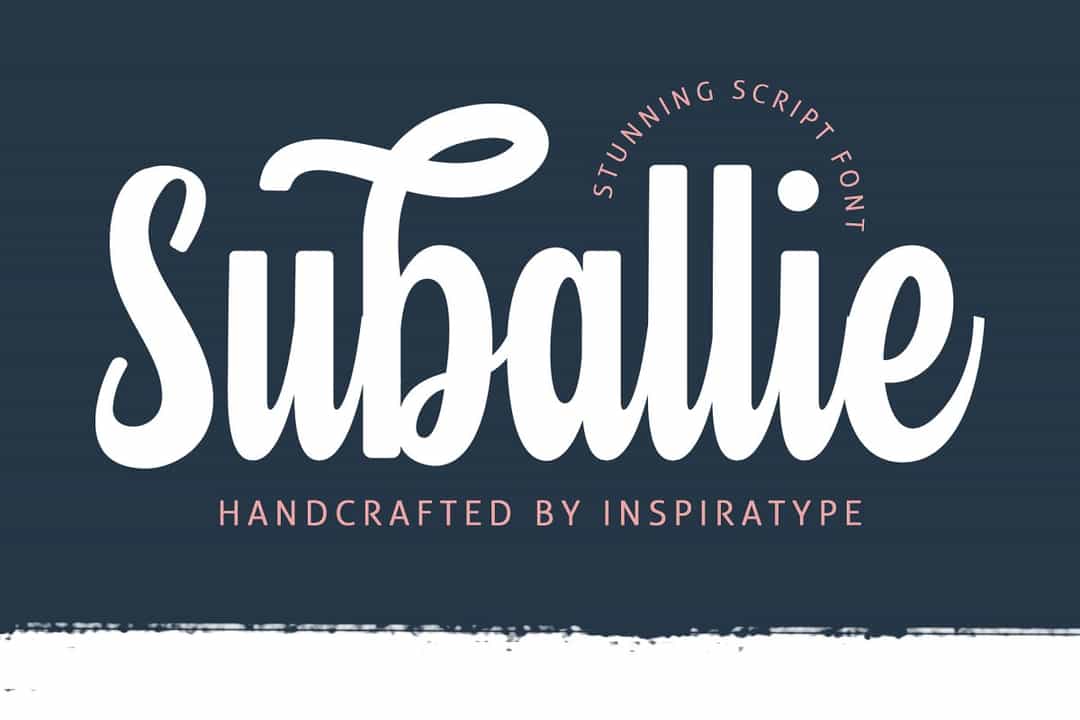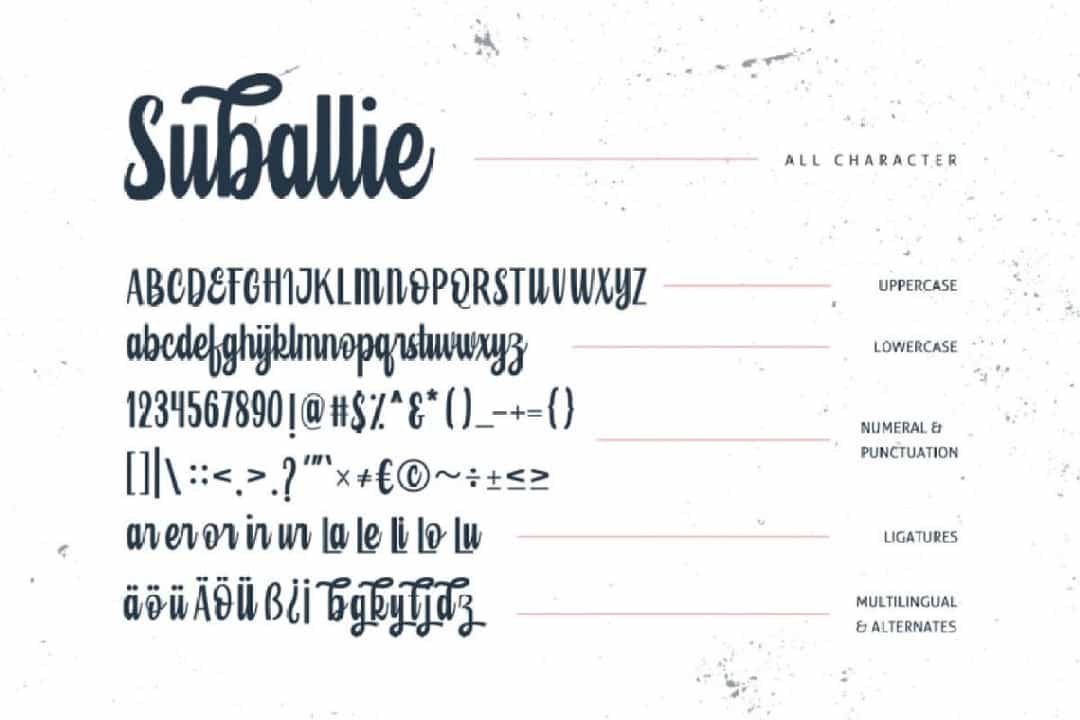
Suballie is a handwritten font that has a lovely look to it. Suballie could be used for creating beautiful wedding invitations, stationery, and parts of Instagram for any occasion!